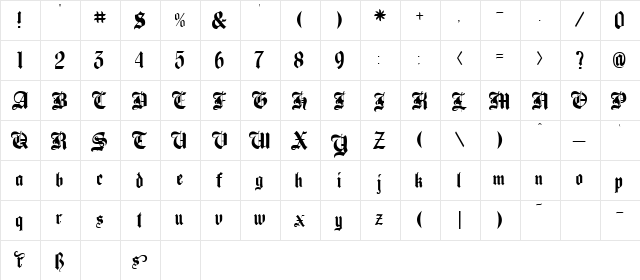
Beckett Regular
Design Context for Beckett Typeface
Beckett is a composed and adaptable typeface that performs quietly and consistently across a wide range of design contexts.